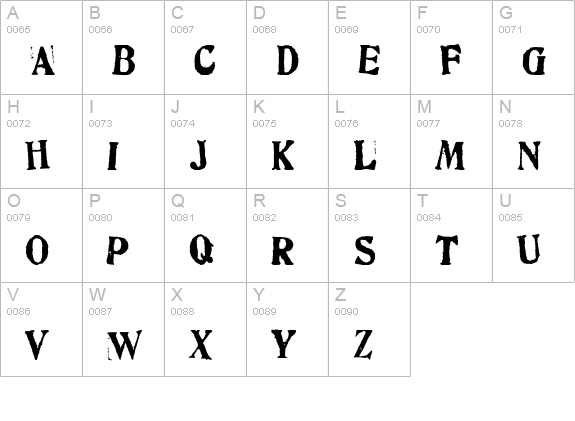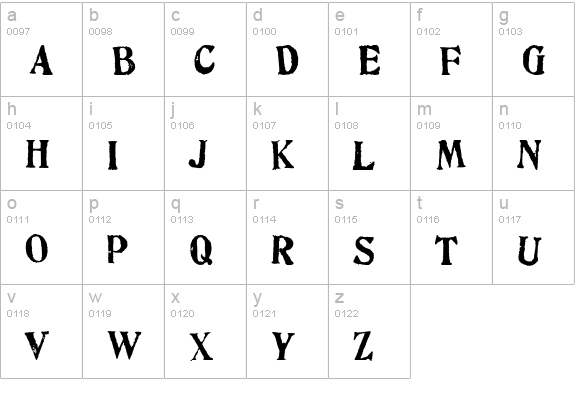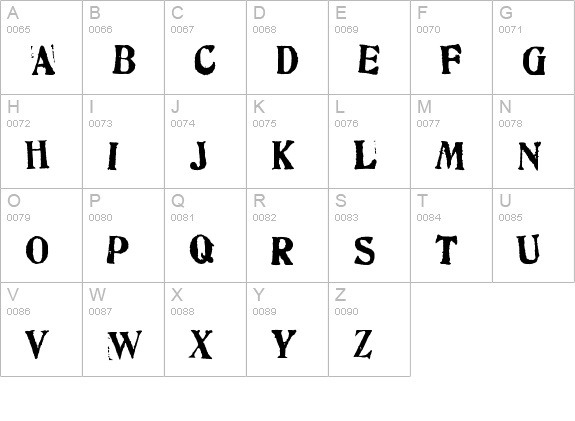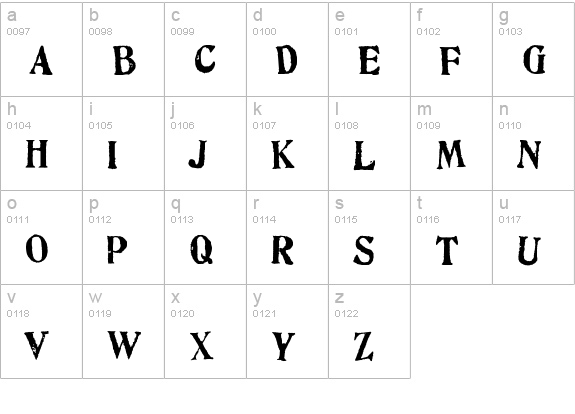
Artistamp Wet Jumbled Font Details
Artistamp Wet Jumbled font is a whimsical and playful typeface that is perfect for adding a unique and artistic touch to your projects. The characters appear to be slightly smudged, as if they were stamped with wet ink, creating a fun and dynamic look. This font is versatile and can be used for various design purposes, such as posters, greeting cards, and more. The best part is that Artistamp Wet Jumbled font is available for free download at FontsMarket.com. You can easily add this creative font to your collection and start using it in your designs without any cost. Don't miss out on this opportunity to enhance your projects with this one-of-a-kind typeface!